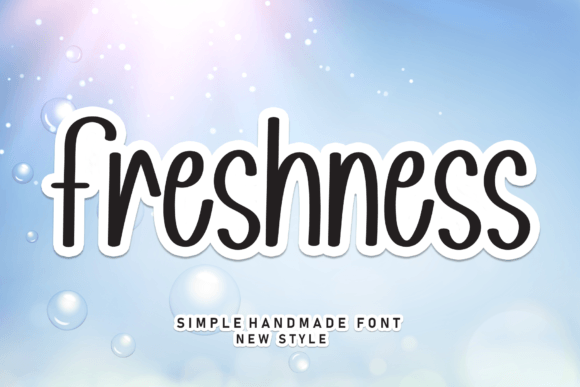
Adorn your Christmas greetings with warmth and charm using Freshness Font - a delightful script font that exudes a sweet and friendly personality. Step into the world of handwritten elegance with this captivating font, designed to bring a touch of whimsy and heartfelt charm to your holiday cards, invitations, and creative endeavors.
Imagine the joy and delight as your loved ones receive Christmas cards adorned with messages penned in the enchanting Freshness Font. Its playful and inviting style adds a personal touch, making each card a cherished keepsake. This font is not just a font; it's a gift of heartfelt emotions, a tangible expression of love and gratitude.
With Freshness Font, you'll embark on a creative journey, transforming ordinary words into charming works of art. Picture your designs flourishing with a touch of hand-crafted magic, capturing the essence of festive cheer and creating designs that truly resonate with your audience. This font isn't merely a collection of letters; it's an artistic expression that breathes life into your creations.
William Jhody, the creative force behind Freshness Font, has poured his heart and soul into crafting this masterpiece. Each stroke and curve carries a story, inviting you to explore new realms of artistic expression. This font is an extension of his passion, a testament to his dedication to creating fonts that inspire and delight.
Dive into the world of festive designs with Freshness Font and witness the transformation it brings to your creative projects. Let your imagination run wild as you explore its endless possibilities, crafting Christmas cards that are as unique and special as the people you cherish.